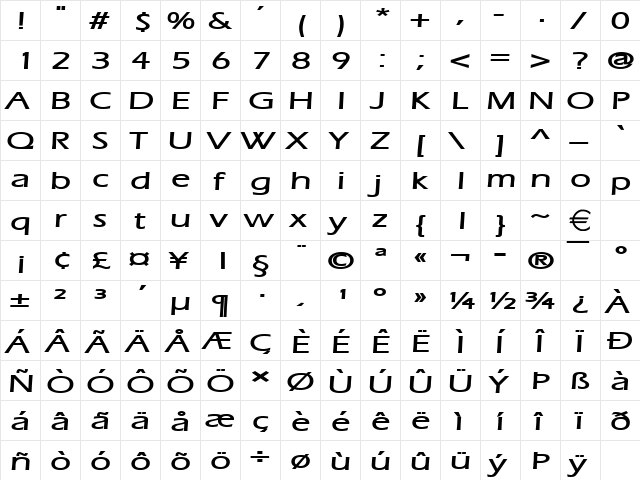
EricExtended Bold Font Preview
EricExtended Bold
Design Context for EricExtended Typeface
EricExtended is a composed and adaptable typeface that performs quietly and consistently across a wide range of design contexts. The heavy weight commands attention and anchors typographic hierarchies.